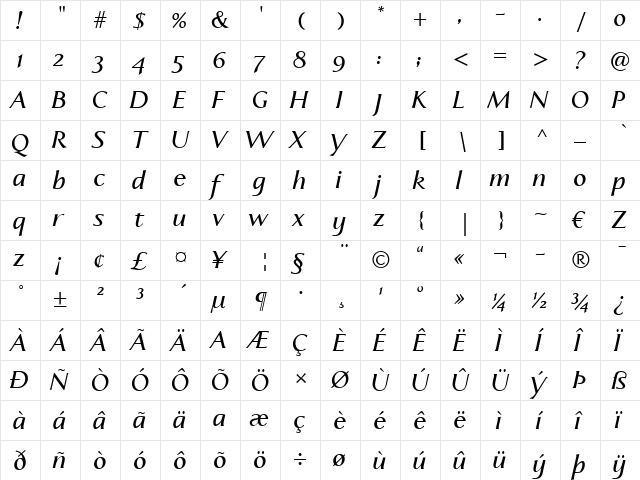
LTAperto SemiBold Italic Font Preview
Design Context for LTAperto SemiBold Typeface
LTAperto SemiBold takes a measured approach to typography — its balanced proportions and neutral character make it a reliable workhorse for both digital and print work. Its italic angle brings a sense of urgency and motion to the letterforms. Its bold stroke weight gives it real presence on the page.
Pro Tip: Try LTAperto SemiBold for annotation and caption copy alongside an upright companion — the contrast in angle creates a dynamic but ordered typographic system.